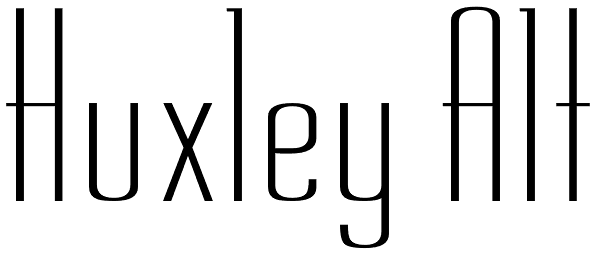
Huxley Alt
Huxley Alt is just that — an alternative to Huxley Vertical by ATF. It represents one of my earliest efforts. I liked the crispness of Huxley Vertical, but wanted a lowercase and with some modulation of the strokes as in Empire, also by ATF. Huxley...